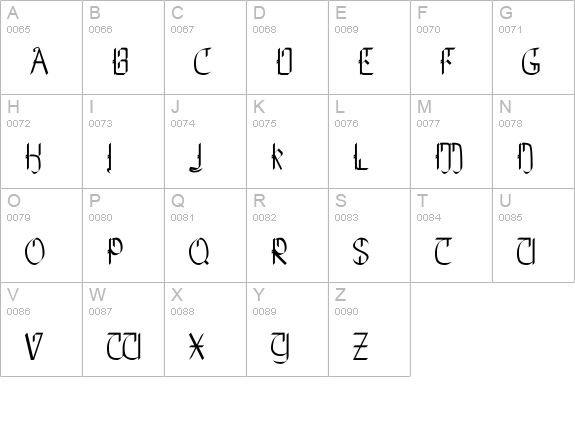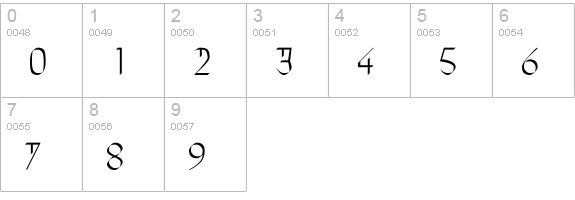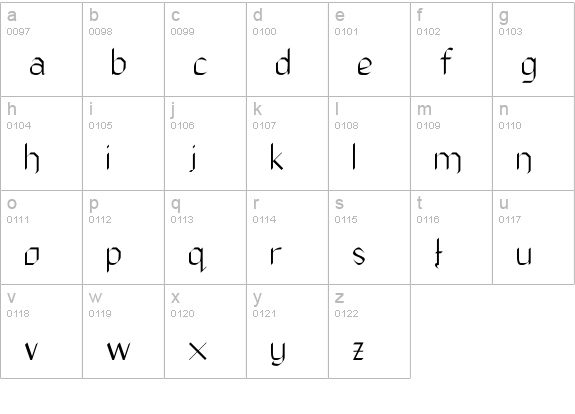
The Daily Blah Font Details
Introducing The Daily Blah font, a charming and versatile typeface that will add a touch of whimsy to your design projects. With its playful curves and quirky letterforms, The Daily Blah is perfect for adding a dose of personality to your next creative endeavor. This font boasts a wide range of characters, including uppercase and lowercase letters, numbers, punctuation marks, and special symbols, ensuring that it covers all your typographic needs. Whether you're designing a logo, creating eye-catching headlines, or sprucing up your social media posts, The Daily Blah has got you covered. But what sets The Daily Blah font apart is its accessibility. We believe that creativity should be free, and that's why we are thrilled to offer this font to you at absolutely no cost. Yes, you read that right – The Daily Blah is freely available to download at FontsMarket.com. Say goodbye to the limitations of expensive fonts and welcome the freedom to express your unique style without breaking the bank. Not only is The Daily Blah font free, but it also comes with a hassle-free installation process. Simply head over to FontsMarket.com, locate The Daily Blah font, and with just a few clicks, it will be ready to use in your favorite design software. No need to worry about complicated licensing agreements or restrictive usage terms – this font is yours to explore and unleash your creative genius. The Daily Blah font is designed with versatility in mind. Its clean lines and legible letterforms make it suitable for a wide range of design projects, from branding and packaging to invitations and posters. It effortlessly adapts to various design styles, whether you're going for a modern, minimalist look or a more whimsical and playful aesthetic. So, why settle for ordinary when you can have extraordinary? Download The Daily Blah font today and embark on a typographic adventure that won't cost you a dime. Unleash your creativity, captivate your audience, and make a lasting impression with this delightful font that is just waiting to be discovered. Remember, The Daily Blah font is only a few clicks away at FontsMarket.com – your go-to destination for high-quality, free fonts.